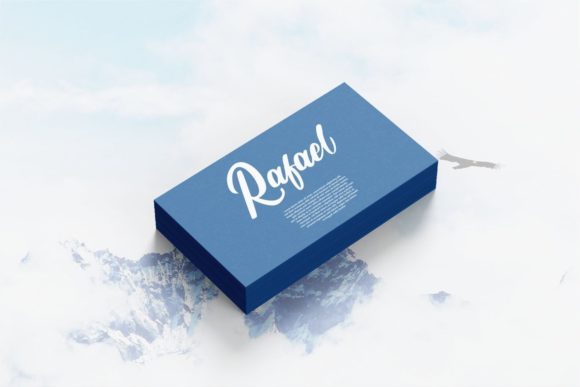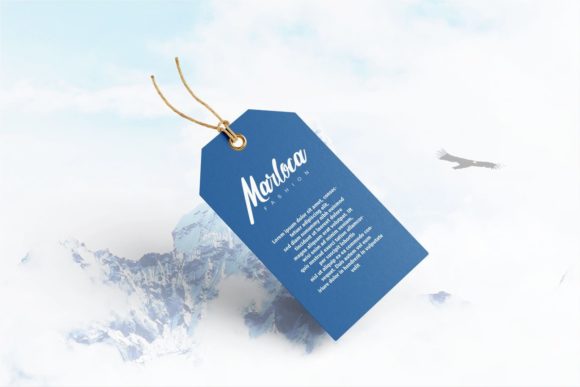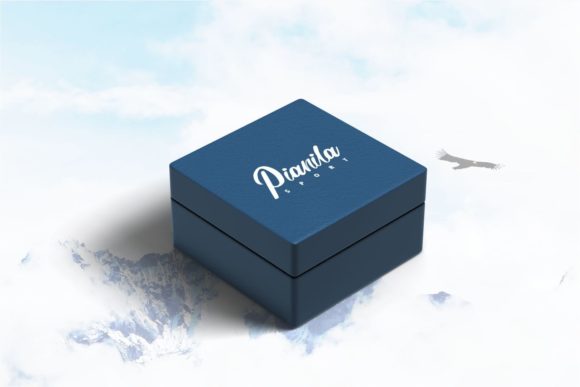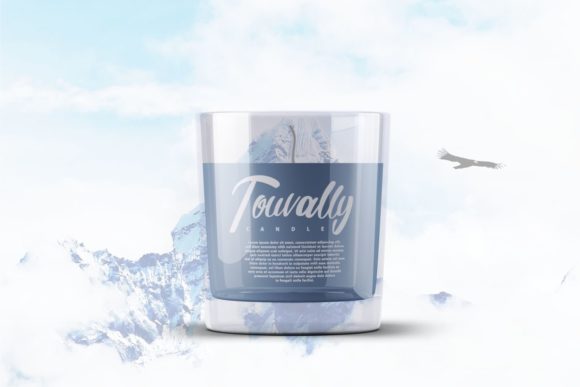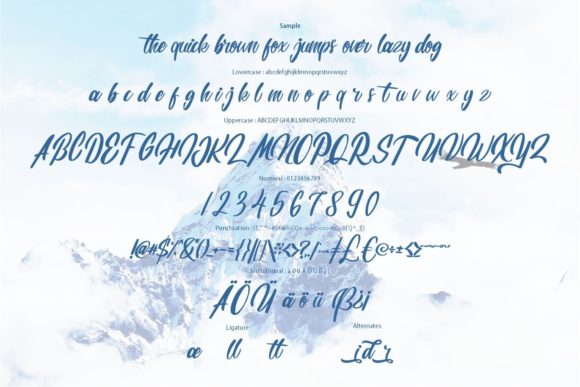
Haidar Font: Elevate Your Designs with Elegance and Sophistication
Are you tired of using the same old fonts in your designs? Look no further than Haidar Font, a stunning handwritten font that is sure to become your new favorite. With its perfect blend of classy calligraphic influences and modern freshness, Haidar Font is the ideal choice for designers and crafters looking to take their projects to the next level.
The Story Behind Haidar Font
Haidar Font is a masterpiece of font design, carefully crafted to provide a unique and elegant writing experience. Its creator had a vision of developing a font that would not only be beautiful but also versatile and easy to read. The result is a font that is both refined and contemporary, making it perfect for a wide range of design applications.
What Makes Haidar Font So Special?
So, what sets Haidar Font apart from other fonts on the market? Here are just a few of its standout features:
- Exquisite Handwritten Style: Haidar Font boasts a gorgeous handwritten style that is both elegant and sophisticated. Its flowing lines and curves give it a personal touch that is sure to capture the attention of your audience.
- Classy Calligraphic Influences: Haidar Font’s calligraphic influences are evident in its refined lettering and beautiful swashes. These classic elements add a touch of luxury and sophistication to any design.
- Contemporary and Fresh: Despite its classic influences, Haidar Font feels modern and fresh. Its clean lines and simple shapes make it easy to read and versatile enough to use in a variety of design contexts.
Haidar Font is a dream come true for designers and crafters looking to add a touch of elegance and sophistication to their projects. Whether you’re working on a logo, branding materials, or a craft project, Haidar Font is the perfect choice. Its versatility and beauty make it suitable for a wide range of applications, from:
- Logos and Branding: Create a lasting impression with a beautiful logo that showcases your brand’s personality and style.
- Stationery and Invitations: Add a touch of elegance to your stationery, invitations, and greeting cards.
- Crafting and Scrapbooking: Take your crafting and scrapbooking projects to the next level with Haidar Font’s beautiful handwritten style.
Why Choose Haidar Font?
With so many fonts on the market, why choose Haidar Font? Here are just a few compelling reasons:
- Unique and Exclusive: Haidar Font is a one-of-a-kind font that will set your designs apart from the crowd.
- Elegant and Sophisticated: Haidar Font’s exquisite handwritten style and classy calligraphic influences make it perfect for designs that require a touch of luxury and sophistication.
- Easy to Read and Versatile: Haidar Font is easy to read and versatile enough to use in a variety of design contexts, from logos and branding to crafting and scrapbooking.
Get Ready to Fall in Love with Haidar Font
If you’re looking for a font that will take your designs to the next level, look no further than Haidar Font. With its exquisite handwritten style, classy calligraphic influences, and modern freshness, Haidar Font is sure to become your new favorite. So why wait? Fall in love with Haidar Font today and bring your projects to the highest levels!
In conclusion, Haidar Font is a stunning handwritten font that is perfect for designers and crafters looking to add a touch of elegance and sophistication to their projects. With its unique and exclusive design, elegant and sophisticated style, and versatility, Haidar Font is the ideal choice for anyone looking to take their designs to the next level. So don’t miss out on this amazing opportunity to elevate your designs with Haidar Font.